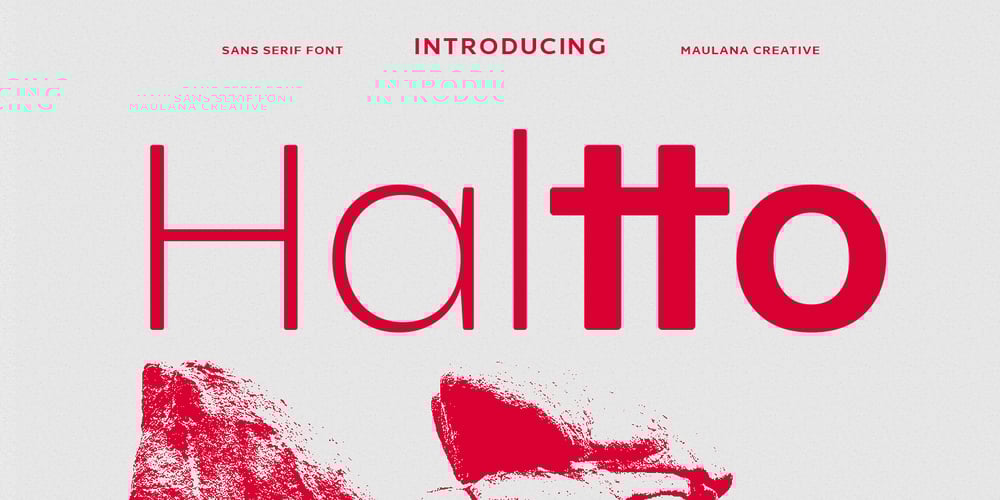
MC Haltto
MC Haltto font
MC Haltto Font Family was designed by Gilang Maulana and published by Maulana Creative. MC Haltto contains 2 styles and family package options. Haltto is a geometric based sans serif font. 2 weights stroke, fun character with a bit of ligatures and alternates. To give you an extra creative work. Haltto font support multilingual more than 100+ language. This font is good for logo design, Social media, Movie Titles, Books Titles, a short text even a long text letter and good for your secondary text font with script or serif. Make a stunning work with Haltto font. Cheers, Maulana Creative